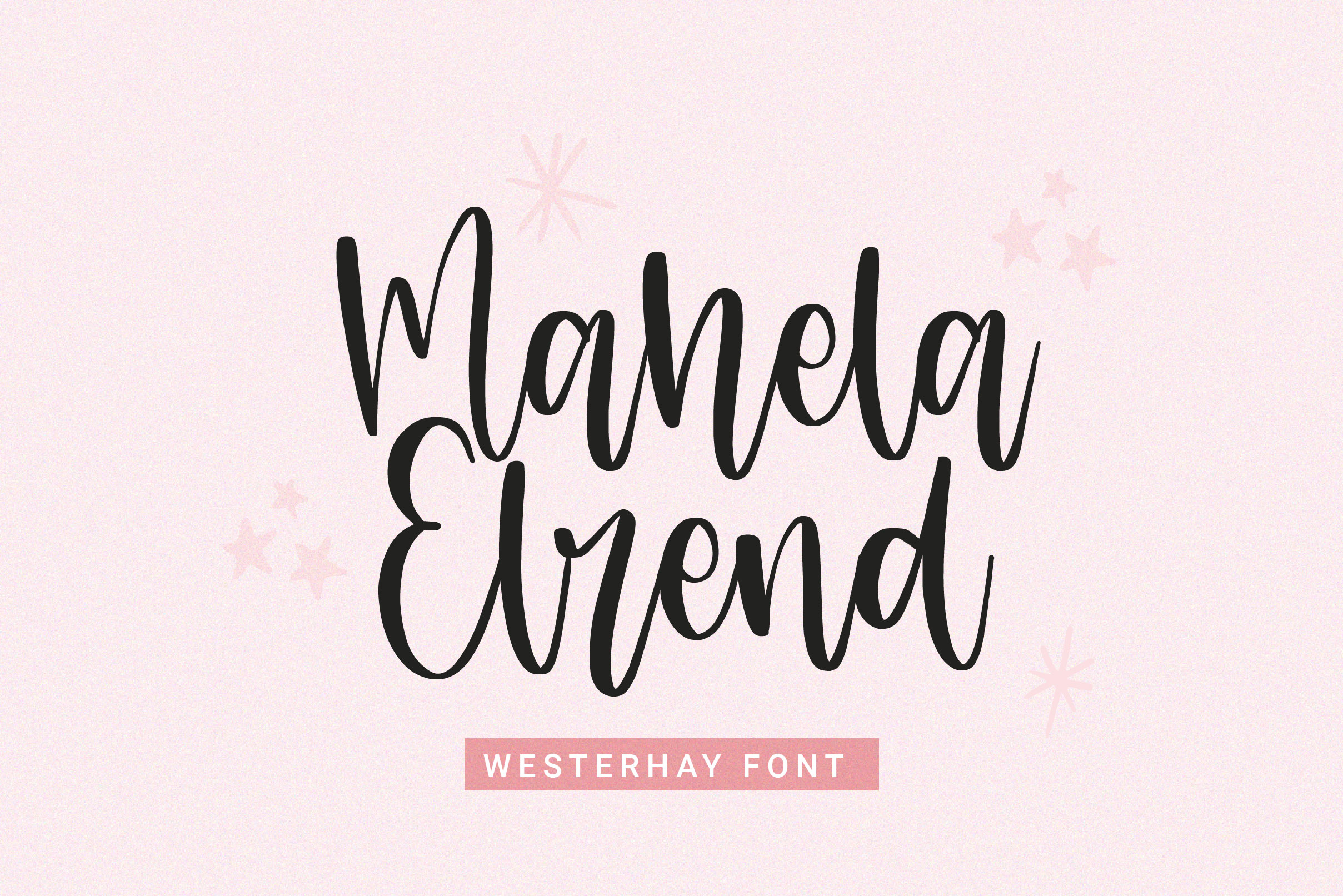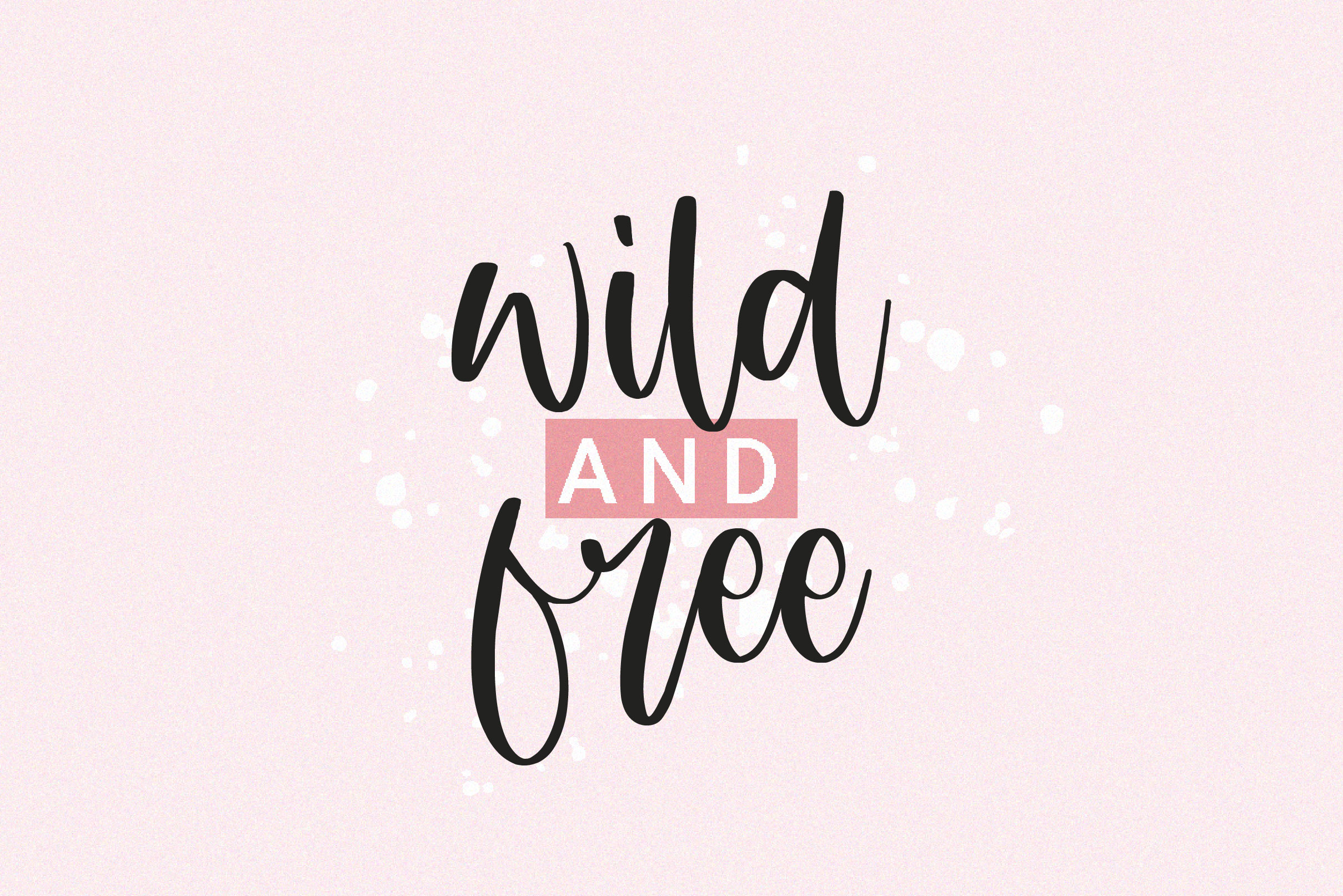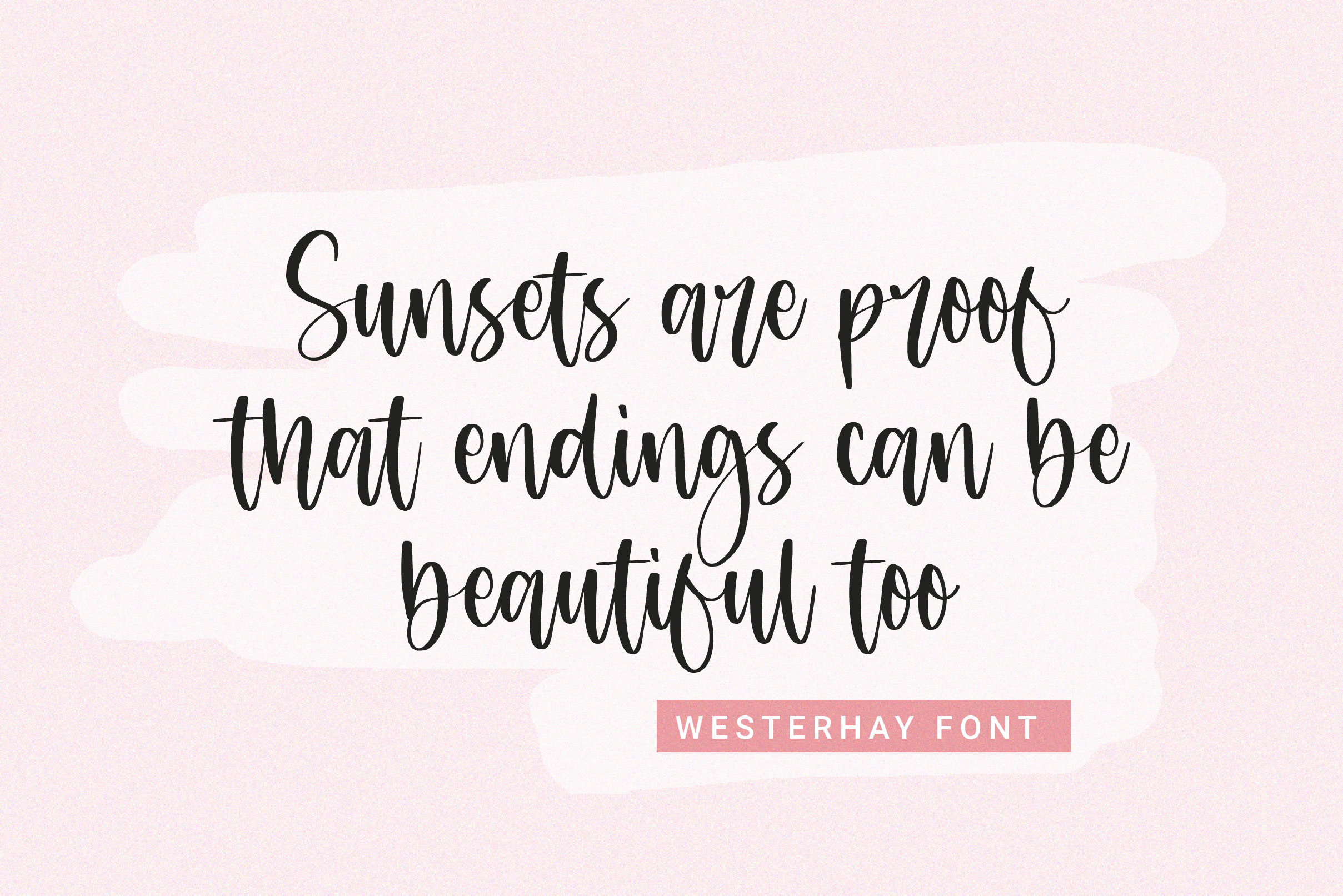
Westerhay Font
Westerhay Script Font is a beautiful, well balanced and stylish script font. It is defined by smooth curves and is perfect for fashion branding or editorial designs.
– Uppercase, Lowercase, Numeral & Punctuation
– Alternate Letters, Ligature & Swash/Tail